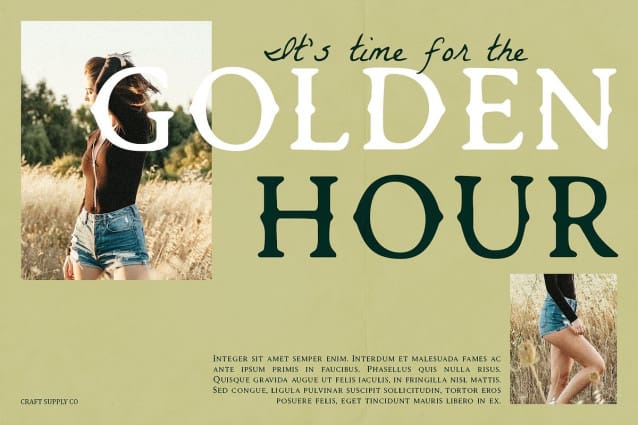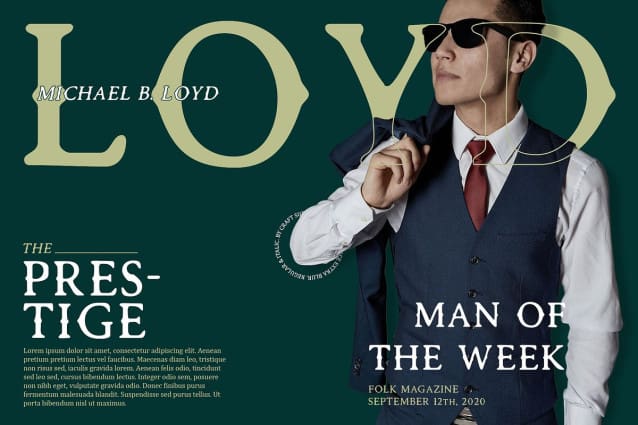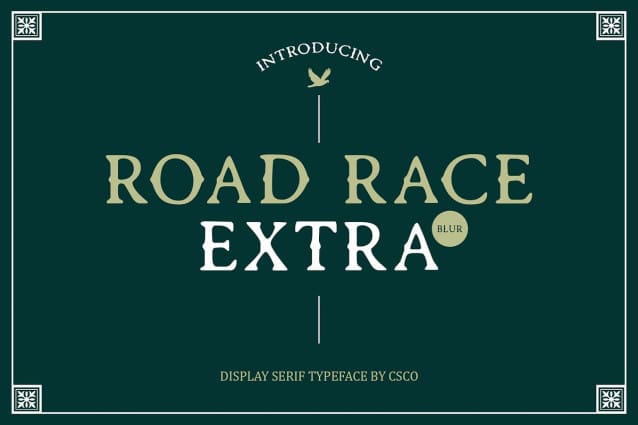
Road Race Extra Blur Font
Road Race Extra Blur Font is a modern display serif font that exudes sophistication with its smooth lines and contemporary style. Its artistic appeal makes it a standout choice for projects that demand creativity and elegance.
Experience the captivating visual dimension added by this font’s blur effect. This feature makes it perfect for design projects aiming to highlight text in a unique and creative manner, enhancing its visual impact.
Whether used for headlines, posters, or branding materials, this font adapts effortlessly to various design applications. Its blend of artistic flair and modern aesthetics ensures versatility and appeal in every context.
Experience the distinctive visual impact of this font’s blend of modern serif aesthetics and artistic blur effect. Whether used in digital or print media, this font stands out with its unique ability to draw attention while maintaining readability and elegance.
Perfect for designers seeking a font that combines artistic finesse with innovation, this font with a blur effect offers a unique solution. Elevate your designs with this font’s ability to capture attention and convey a contemporary yet refined impression.